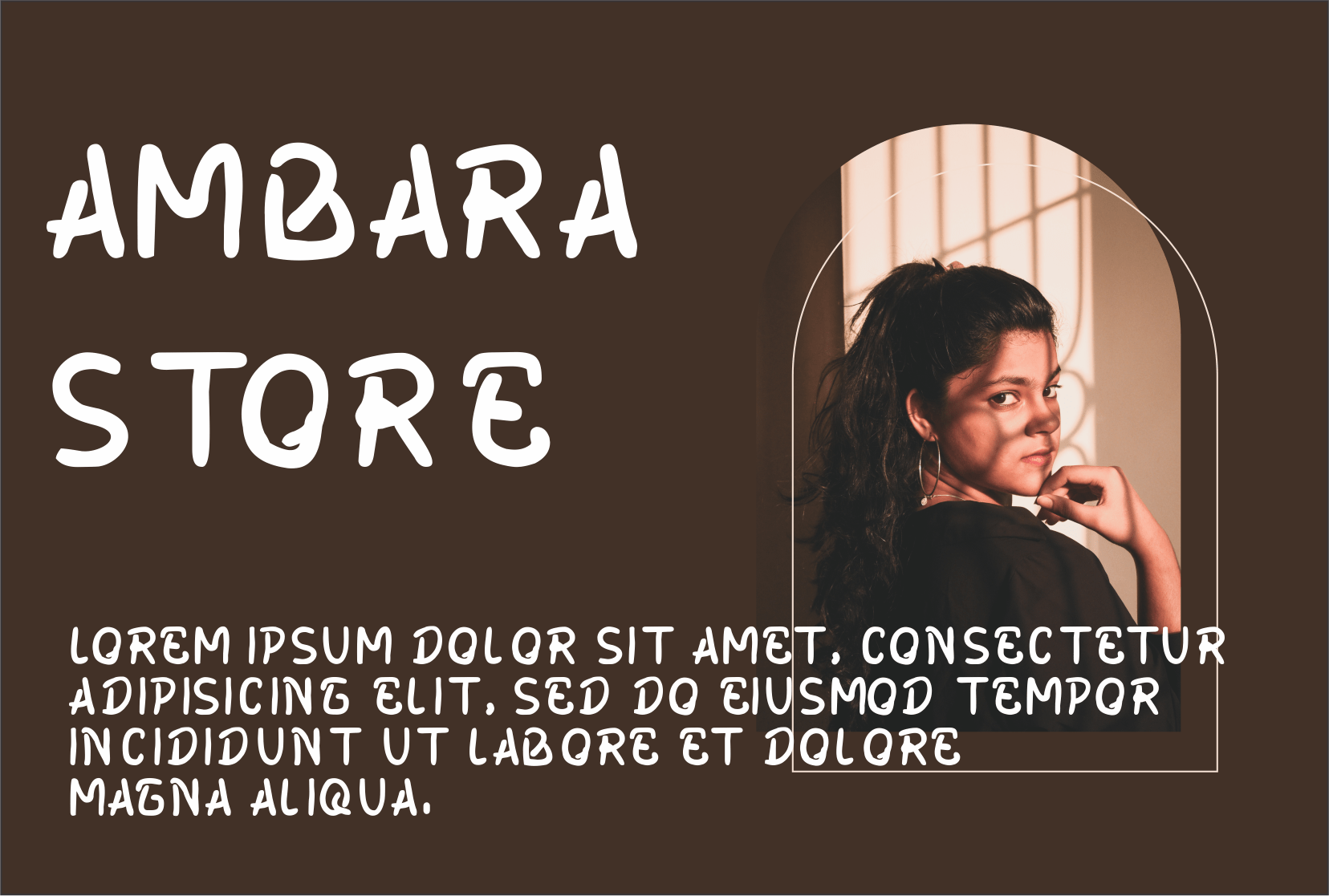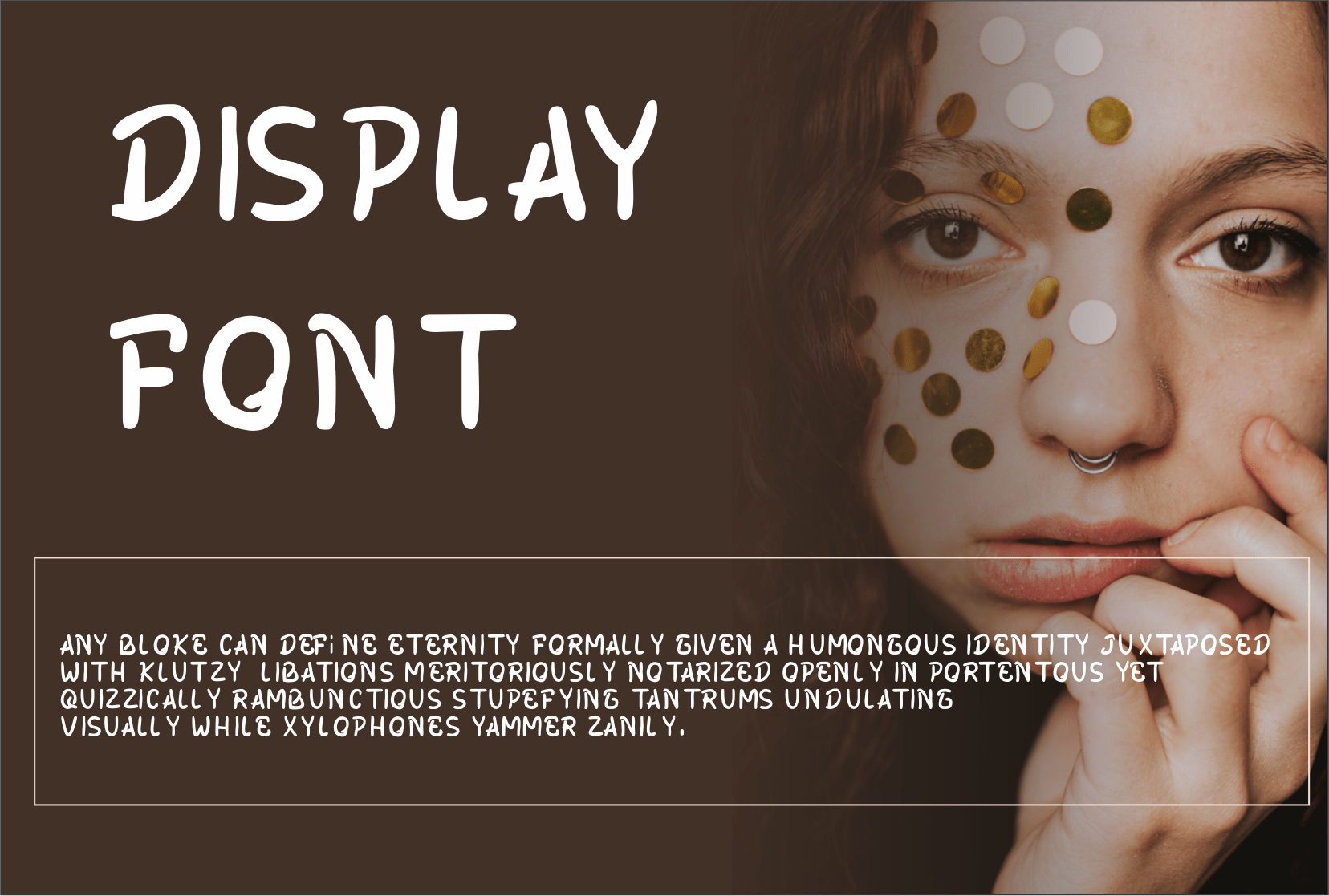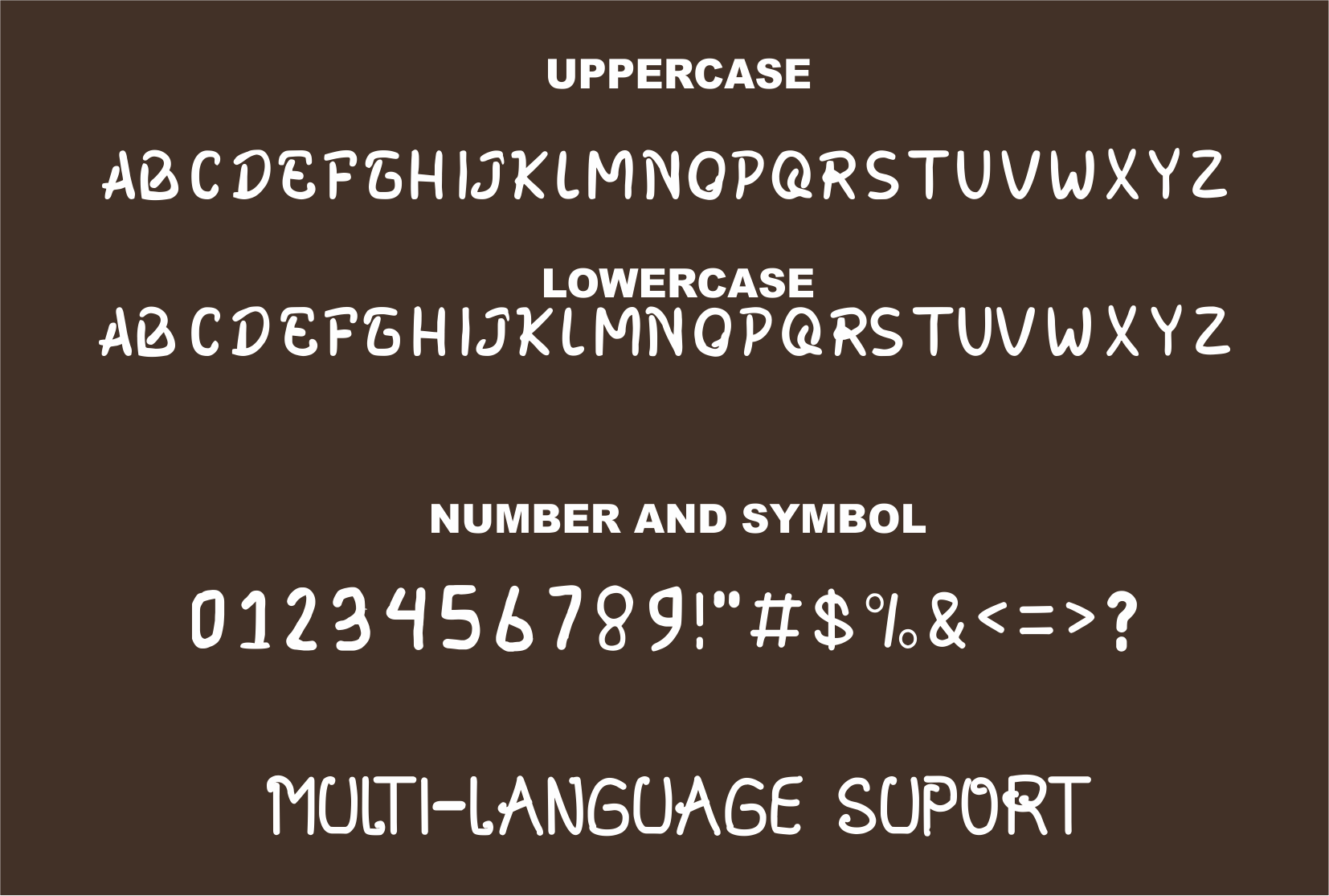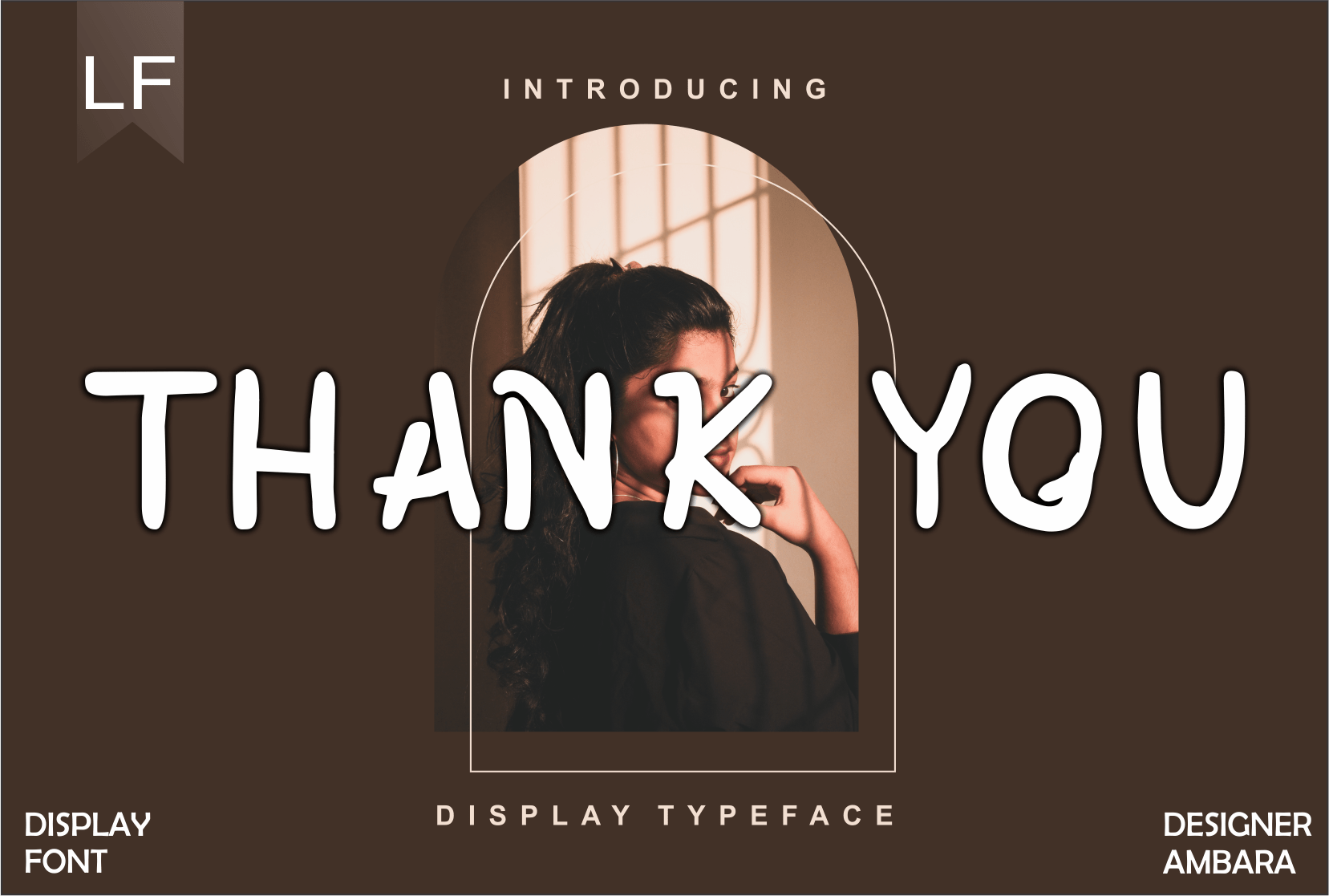
Qorek Display Font
It’s a neat and modern display font with stylish characters and an elegant vibe. It will surely add more beauty and charm to your creative ideas and projects!